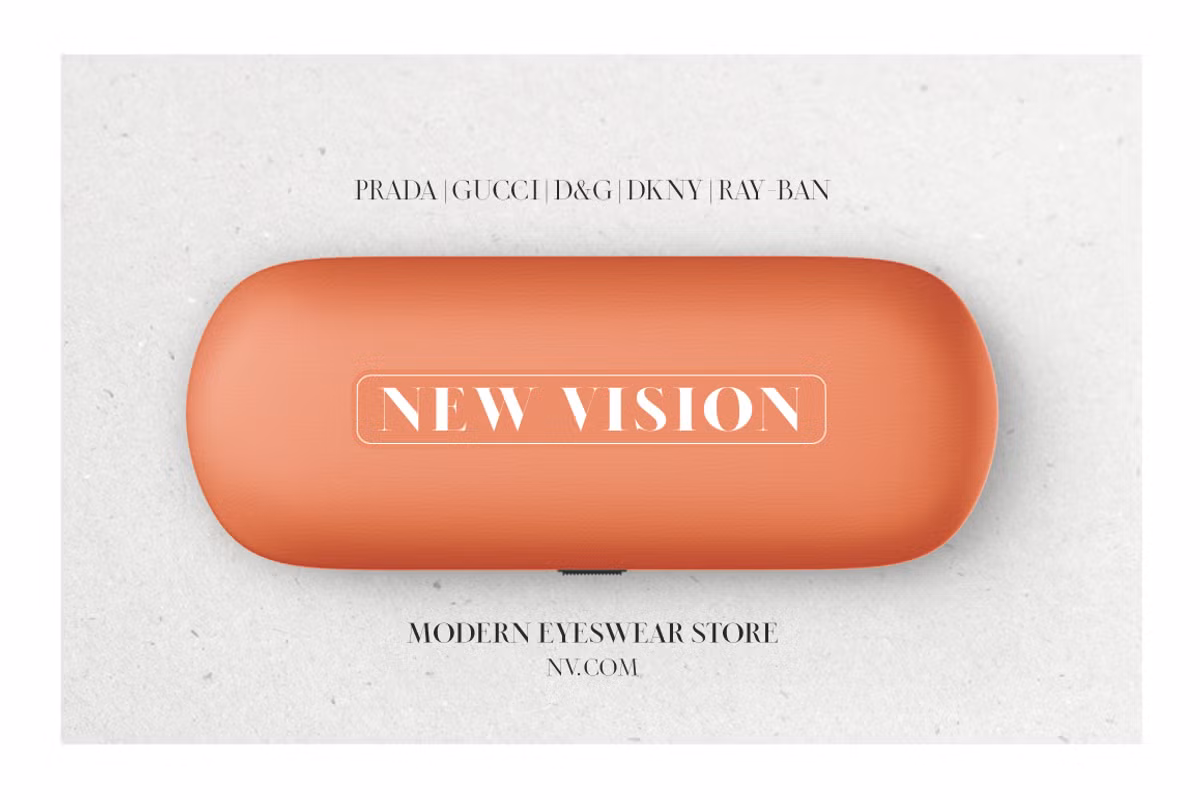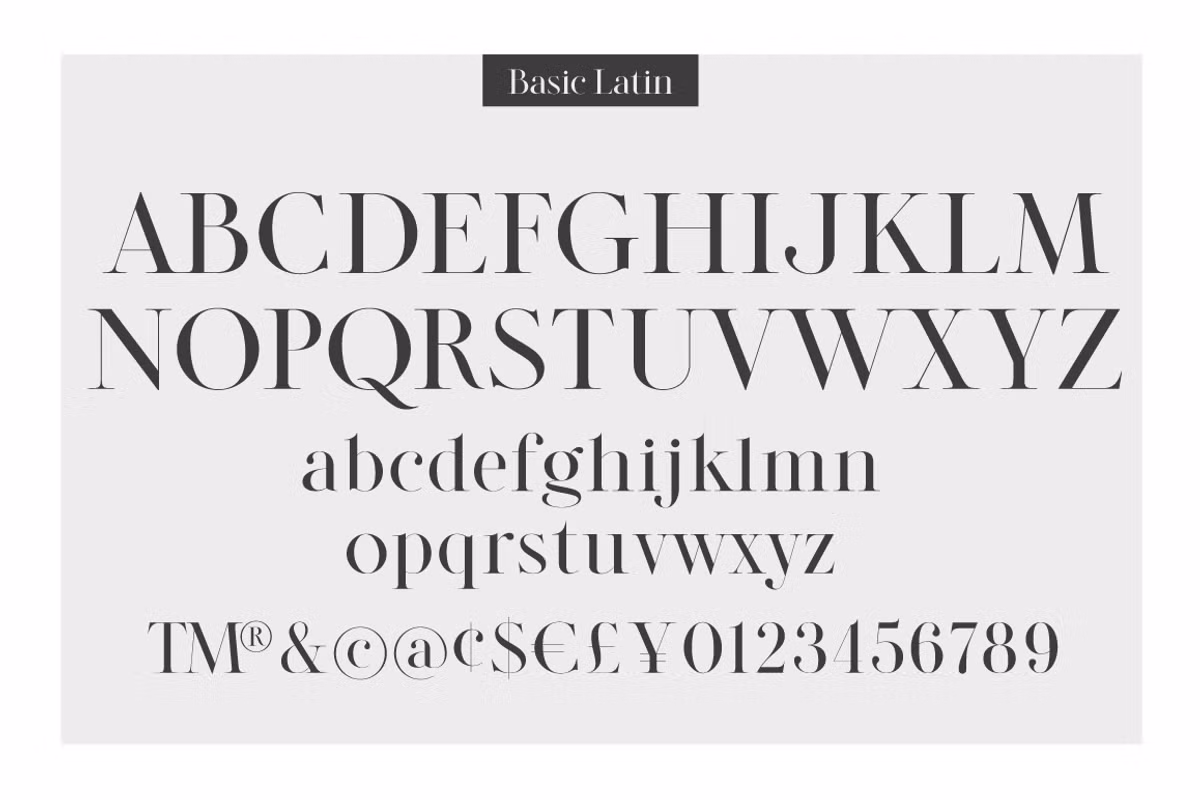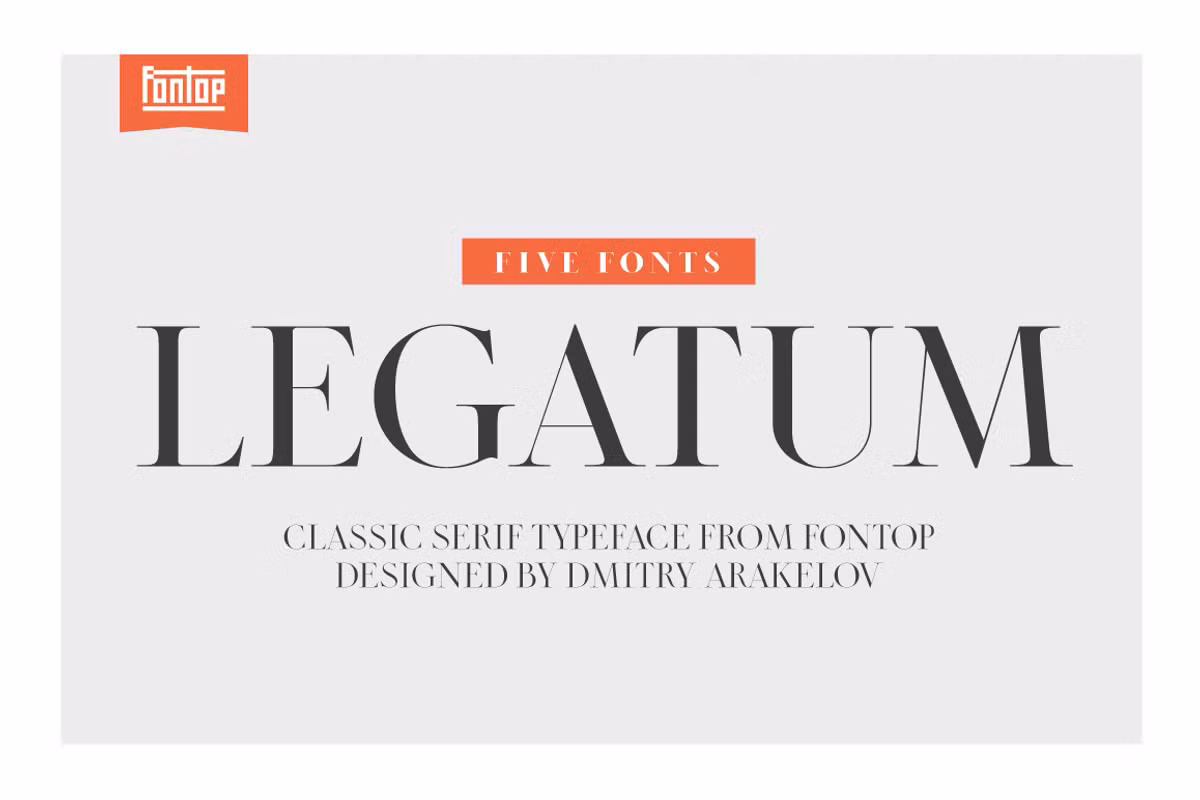
Legatum Font
Legatum is a well-crafted serif typeface in the tradition of roman sycamore, columns and other features of the architecture of the Italian capital. It is, perhaps, because of the shapes and the high contrast of the respective letters on the signs that the latter looks very stylish, classy, and appealing. Good for titles of posters, texts in magazings, books. It can also be used in logos and in individual entries in a blog.
Legatum Serif Font